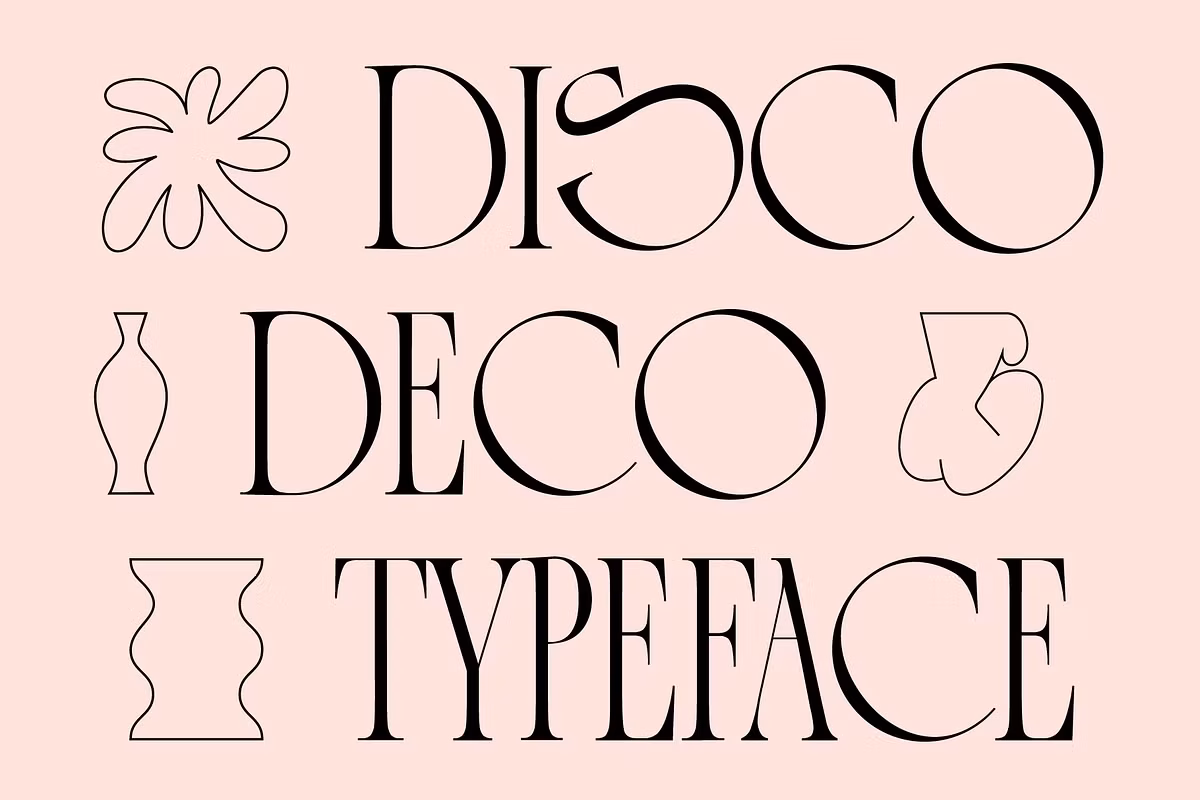
Disco Deco - Graphic Serif Typeface Free Download is a vibrant and playful typeface that seamlessly blends Art Deco elegance with modern design elements. This font is perfect for creating eye-catching posters, unique logos, and dynamic social media graphics that demand attention. Its distinctive feature includes a complete lowercase set of fun graphic glyphs, allowing you to mix and match letters with decorative elements to craft personalized and engaging typography.